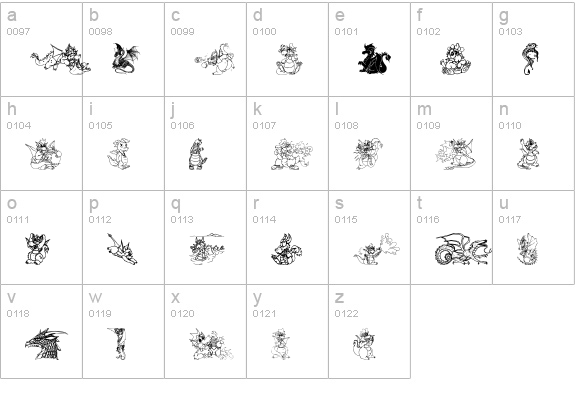
Ev's Dragons Font Details
Ev's Dragons font is a mystical and enchanting typeface that transports you to a world of fantasy and magic. With its intricate details and elegant curves, this font brings to life the majestic and powerful essence of dragons. Each letter is carefully designed to evoke a sense of awe and wonder, making it perfect for projects that require a touch of mystery and adventure. What makes Ev's Dragons font even more special is that it is available for free download at FontsMarket.com. This means that you can easily access this captivating font and use it in your creative endeavors without any cost. Whether you are working on a fantasy novel, a themed party invitation, or a mystical poster, Ev's Dragons font will add a touch of magic to your designs. Embrace the power of dragons and let your imagination soar with Ev's Dragons font.